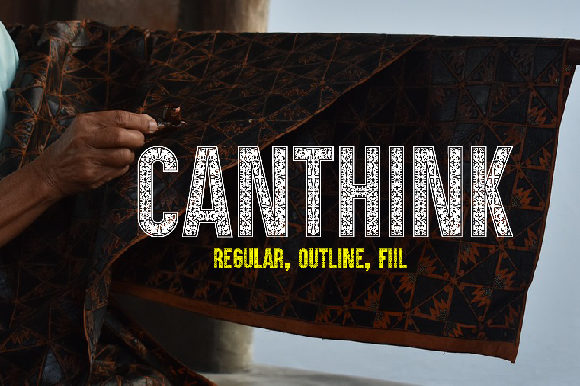
Journey into a realm of beauty and elegance with the Canthink Font, a masterpiece inspired by the intricate patterns of Indonesian fabrics. Each letter is a tapestry of art, a delicate dance of lines and curves that tells a story of heritage and culture. Let your imagination soar as you explore the regular, outline, and fill versions, allowing you to weave your own narrative through design.
The Canthink Font is your gateway to a world of decorative wonder. Dive into a sea of batik motifs, each stroke a reflection of Indonesia's rich history and artistry. Whether you're crafting digital art, creating eye-catching logos, or designing beautiful invitations, the Canthink Font will infuse your work with a touch of timeless allure.
Indulge in endless creative possibilities with the Canthink Font. Combine the outlines and fill to unleash your artistic vision, transforming your designs into captivating works of art. Let your imagination dance across the page as you bring life to your projects with this extraordinary font.
The Canthink Font is more than just a collection of letters; it's a portal to a world of enchantment and wonder. It's an invitation to embrace beauty, to celebrate culture, and to leave an indelible mark on the world through your creations. Dare to be different, dare to be bold, and let the Canthink Font be your guiding light.